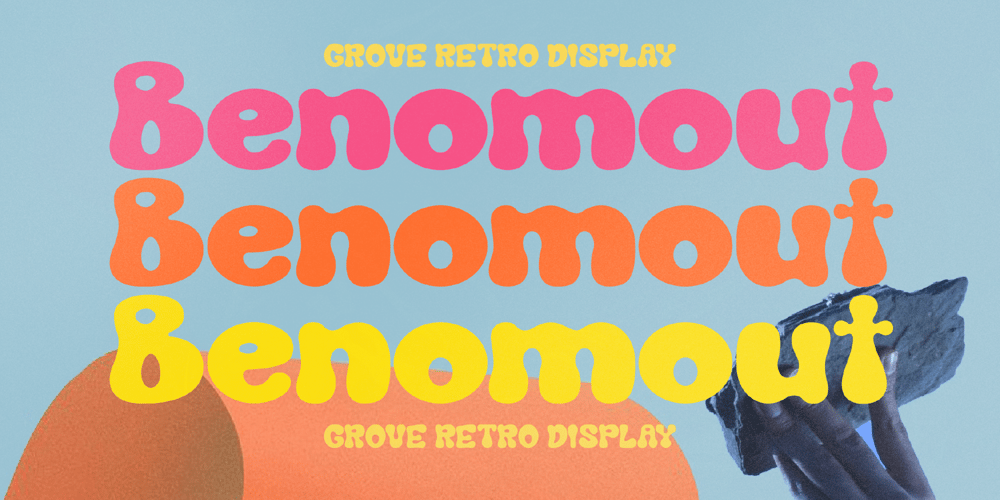
Benomout Font Family was designed by Heru Utama Putra and published by Letterena Studios. Benomout contains 2 styles and family package options. Benomout is a cool, retro and wavy display font.This typeface is perfect for an elegant & luxury logo, book or movie title design, fashion brand, magazine, clothes, lettering, quotes, and so much more.